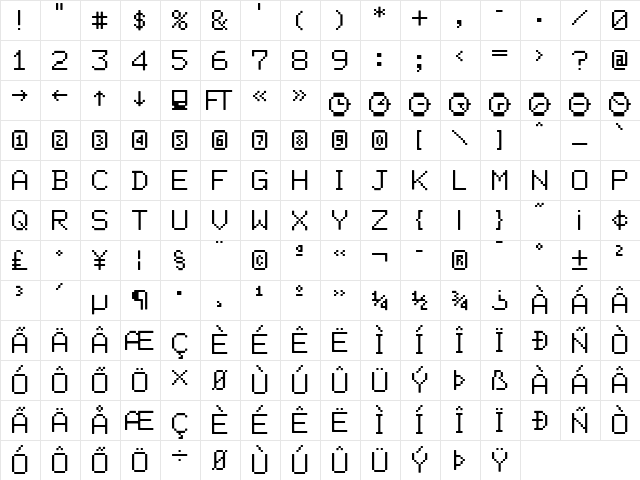
FacsimileLL Medium
Design Context for FacsimileLL Typeface
FacsimileLL is a composed and adaptable typeface that performs quietly and consistently across a wide range of design contexts.